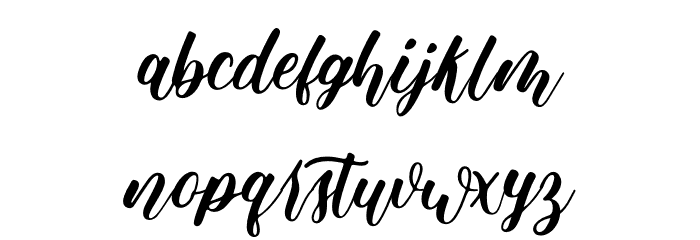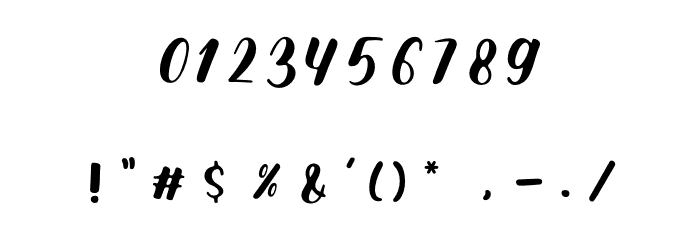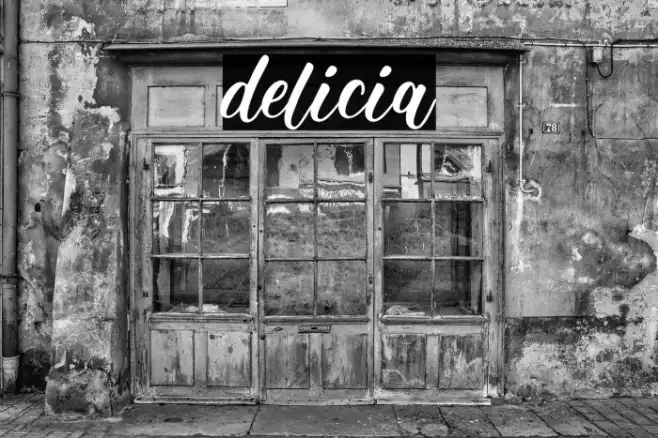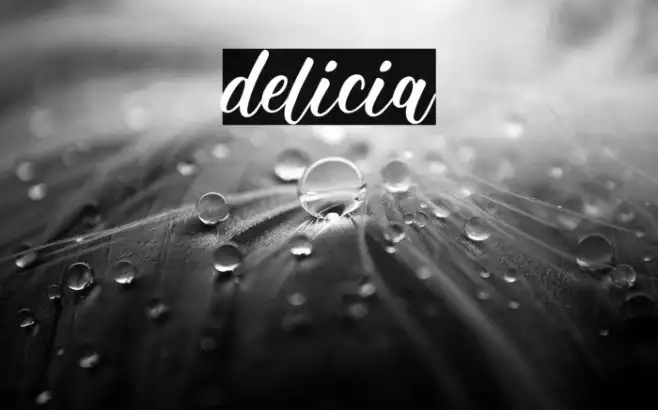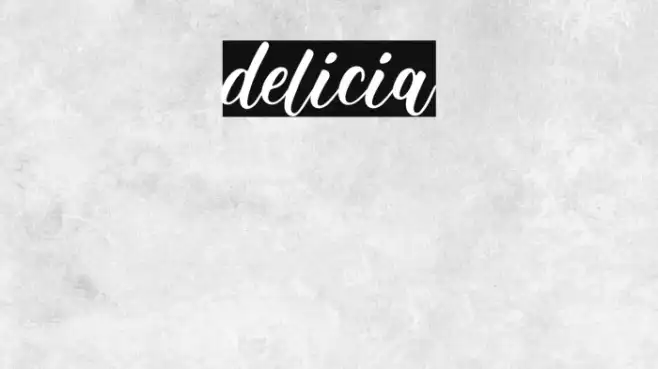
delicia Font
This font exhibits a flowing, cursive style with a modern twist. The characters are elegantly connected, creating a sense of fluidity and motion. The uppercase letters are bold and prominent, while the lowercase letters maintain a consistent, graceful appearance. The numerals are distinct yet harmonize well with the overall script style. Special characters are designed to complement the alphabet, maintaining the same artistic flair. The font's smooth curves and balanced proportions make it suitable for creative and expressive projects.
A modern, cursive script font with elegant, flowing characters.
- Proposed Projects: Ideal for wedding invitations, greeting cards, branding, and logo design.
- Use Case: Logos, Invitations, Decorative text